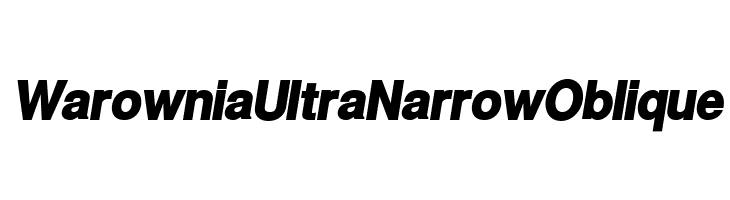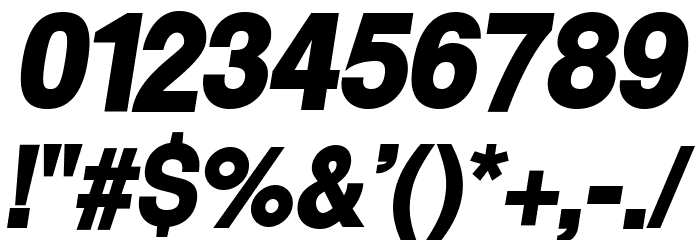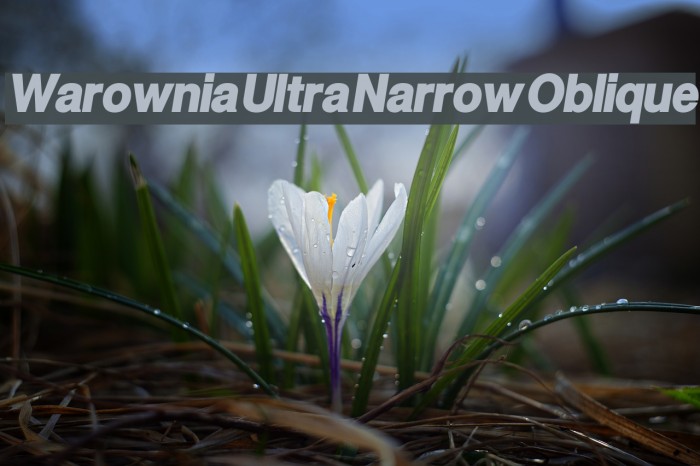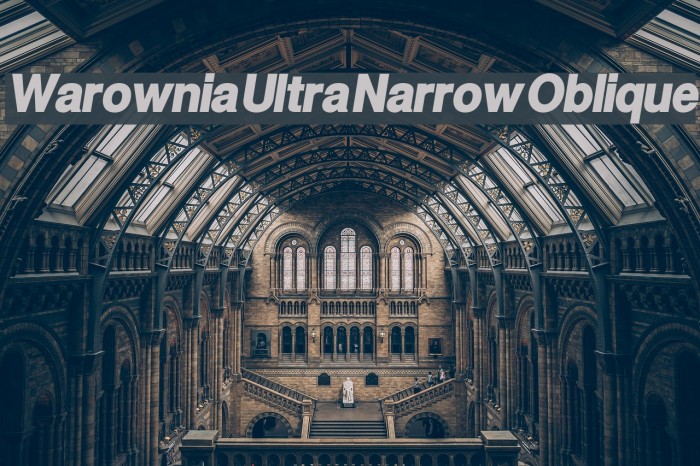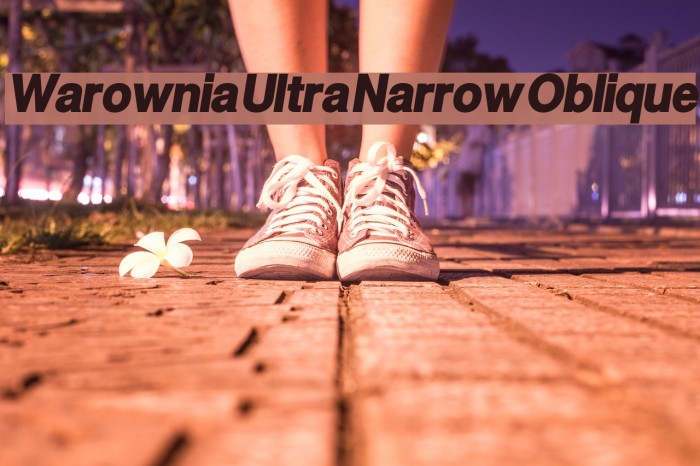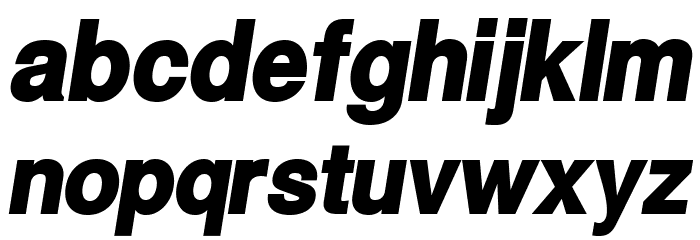
Warownia Ultra Narrow Oblique Font
Warownia Ultra Narrow Oblique Description
This font features a bold and dynamic style with an ultra-narrow and oblique design. The characters are tightly spaced, creating a compact and impactful appearance. The uppercase and lowercase letters maintain a consistent slant, enhancing the font's modern and sleek aesthetic. The numbers and special characters follow the same oblique style, ensuring uniformity across all elements. The bold weight of the font adds to its strong presence, making it suitable for attention-grabbing designs. The overall style is contemporary, with a focus on clarity and readability despite the narrow width.
| Proposed Projects | Ideal for headlines, posters, branding, and advertising where a strong and modern impact is desired. |